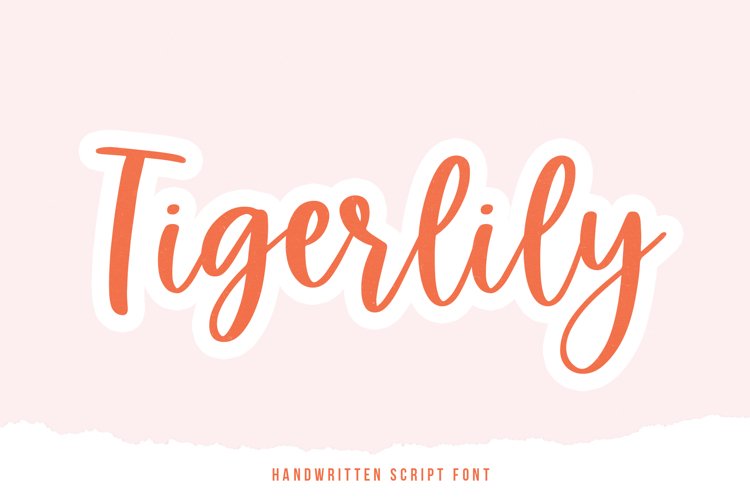
Tigerlily - A Handwritten Script Font
Tigerlily
Tigerlily is a cute handwritten script font!
This font is perfect for quotes, shirt designs, websites, branding, svg designs, blogs, logos, invitations and more!